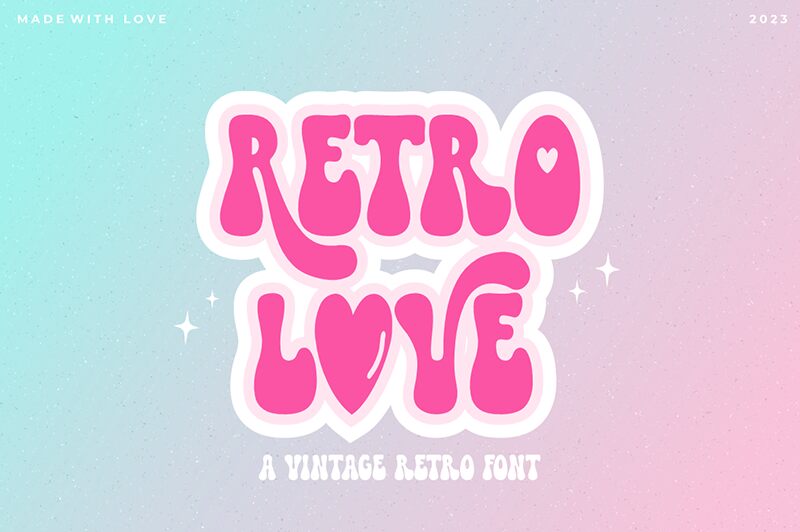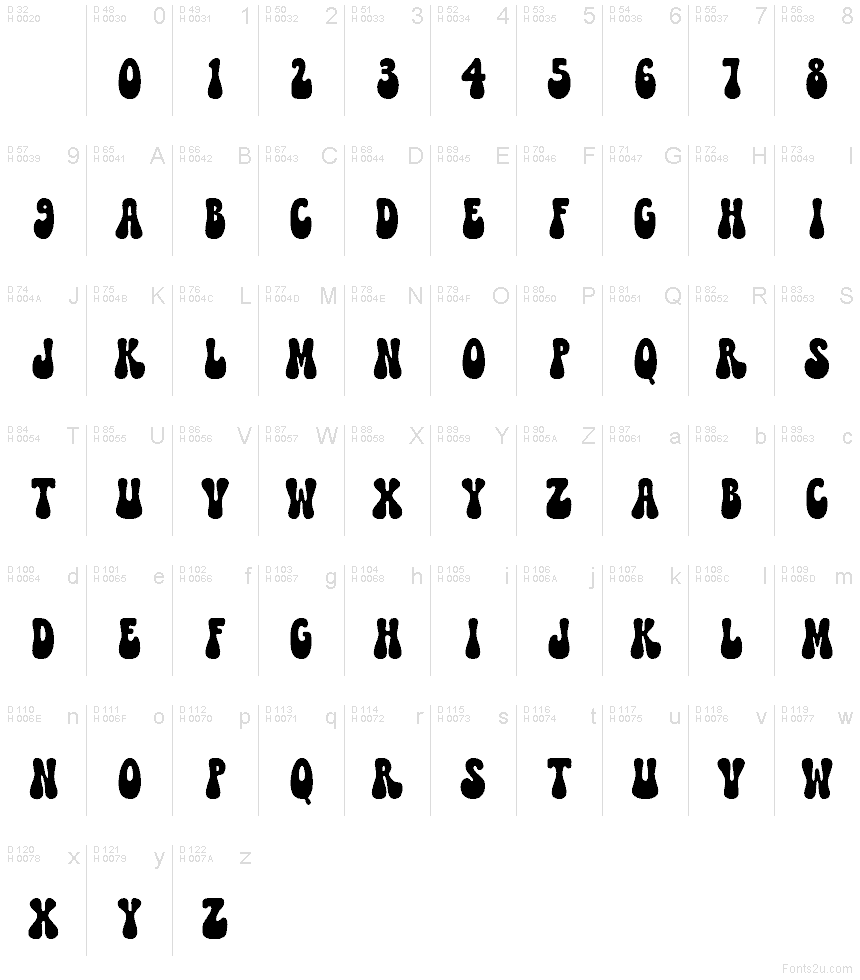
Retro Love
Retro Love font by ReyreyBlue is a free groovy display typeface. Its chunky, ink-blot letters swell like droplets, with soft wobbling edges that feel hand-poured and a touch psychedelic. The rhythm is bold and bouncy, so headlines pop with a syrupy, feel-good thump while staying legible at a glance.
Using Retro Love, you can punch up festival posters, vintage-flavored album covers, playful packaging, sticker sheets, T-shirt graphics, event invites, and social banners. The generous forms hold color and texture beautifully. Pair this free font with a tidy geometric sans for body copy, and let Retro Love handle the big, bubbly moments at larger sizes.